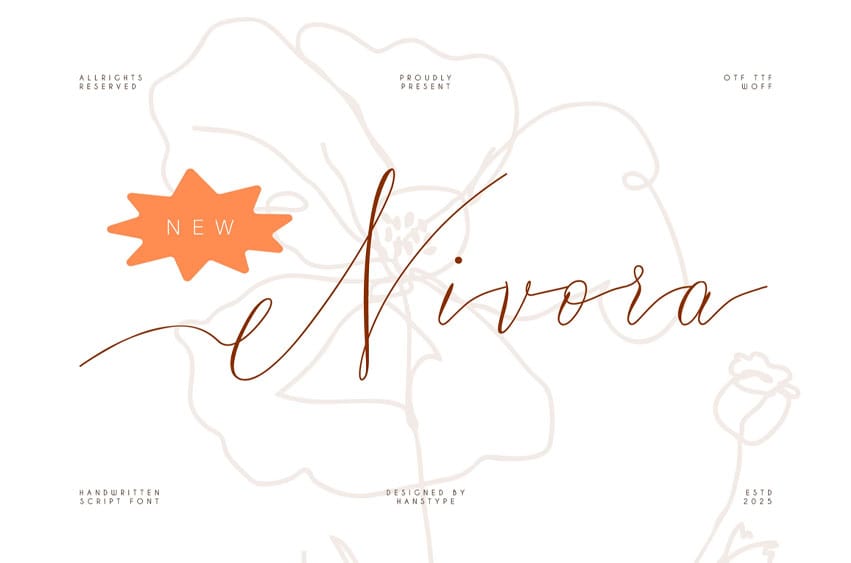
Nivora Handwritten Font is a script handwritten font that combines elegance with a relaxed, natural flow. Its sweeping curves and fluid strokes give it an organic, hand-crafted feel, perfect for adding a personal touch to any design.
The font’s sophisticated yet approachable style makes it ideal for use in projects such as invitations, branding, or creative typography.